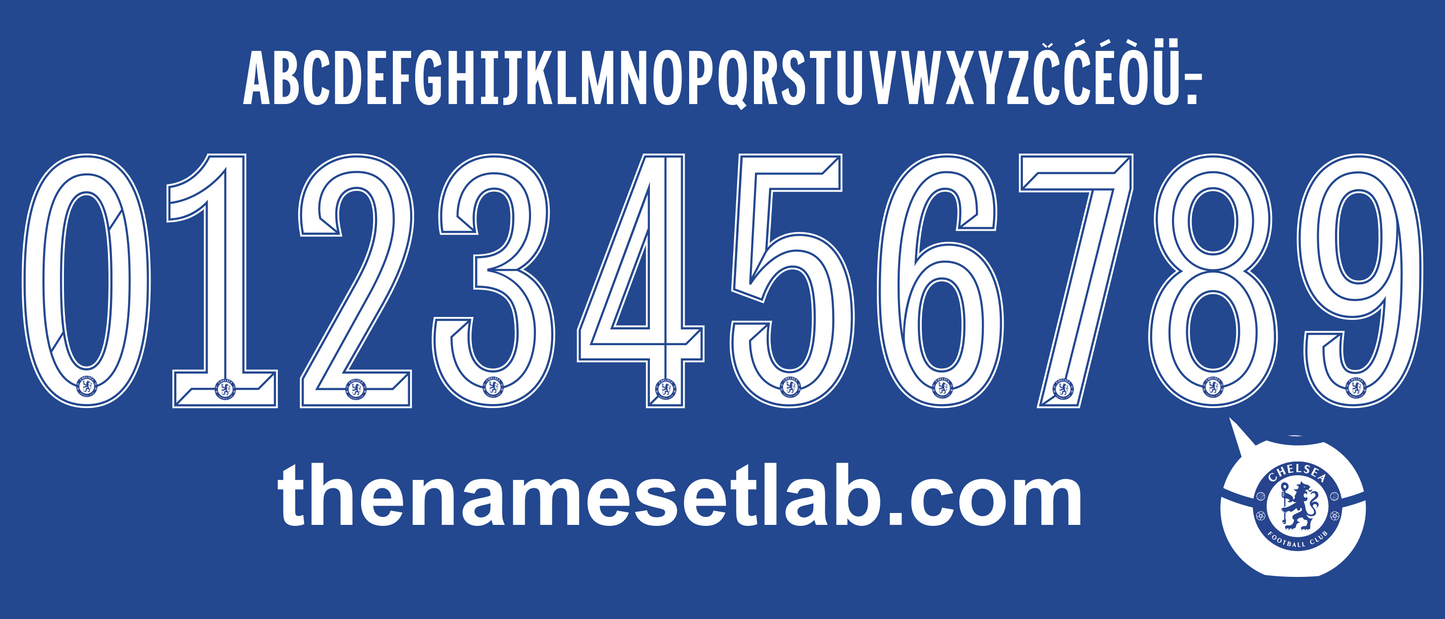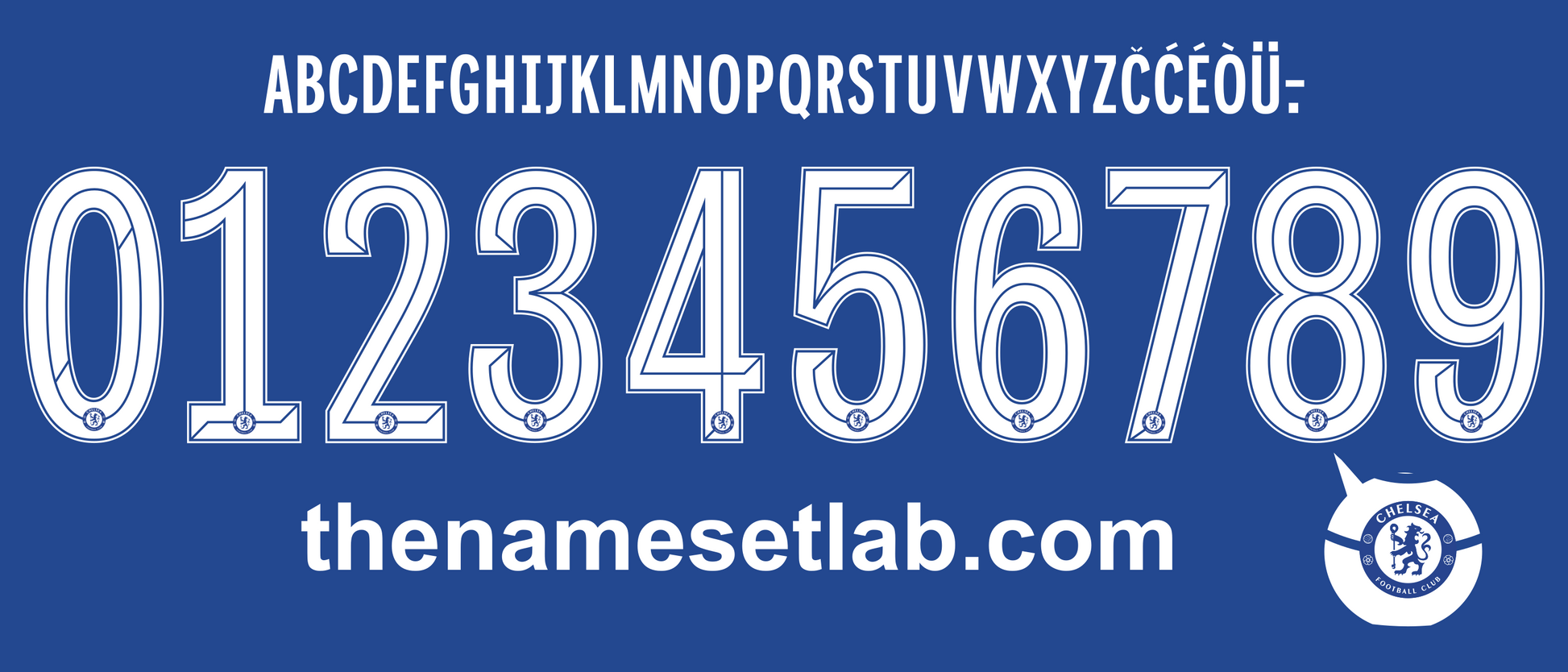
Chelsea 2019-2020 UCL / Cup Font Nameset AI Vector File
Download this Chelsea 2019-2020 UCL / Cup nameset as an editable .ai vector file. Featuring the 19/20 font style, it's perfect for replicating Champions League or cup match shirts, digital artwork, or personal printing projects. A top pick for collectors and Chelsea fans.